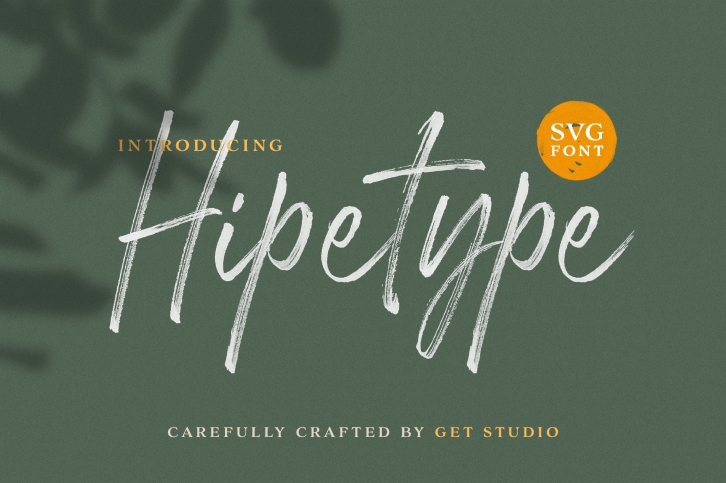
Hipetype SVG is a beautiful font that was designed by Getstudio. It's a great choice for designers and creatives who need such a font. It was released on December 20, 2019 and the file size is 5.66 MB. Hipetype SVG may give a more youthful, expressive and casual look to your project. It is a very beautiful, refined, elegant, and high-quality font.